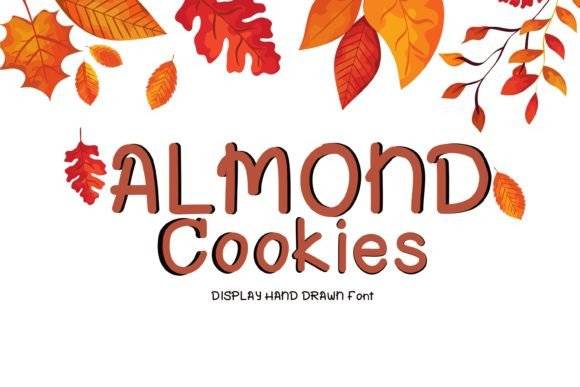
Almond Cookies Font for Cricut, Silhouette and Printable Designs
This delightful font delivers a soft, hand-drawn style perfect for cutting machines, digital printing, and handmade design work. Almond Cookies is designed with friendly curves and warm spacing to make crafting projects look both approachable and polished.
As a font entity, it's ideal for users of Cricut and Silhouette software who want a playful but legible look across stickers, signage, shirts, and other DIY creations. It brings a sweet aesthetic that suits both everyday projects and special occasions.
Whether you're designing labels, party decor, or planner inserts, Almond Cookies is the perfect topping.
- Stickers, labels, and party signs
- Printable planner pages and inserts
- Custom shirts, mugs, and tote bags
- Greeting cards and DIY invitations
- Decorations for home and events
- Whimsical and friendly design
- Perfect for cutting and printing
- Ideal for both digital and handmade projects
- Great for kids crafts and cheerful branding
Q: What type of font is Almond Cookies?
A: Almond Cookies is a cute, hand-lettered font designed for Cricut, Silhouette, and printable creative use. With its whimsical curves and playful style, Almond Cookies adds a charming touch to any project, making it perfect for scrapbooking, card making, and personalized gifts. Additionally, the Angelina font for craft projects complements Almond Cookies beautifully, providing a versatile pairing that enhances the overall aesthetic. Whether you’re crafting for a special occasion or simply enjoying a creative day, these fonts will elevate your designs to the next level.
Q: Is this font good for printing and cutting?
A: Yes, Almond Cookies is optimized for both print quality and cut path clarity.